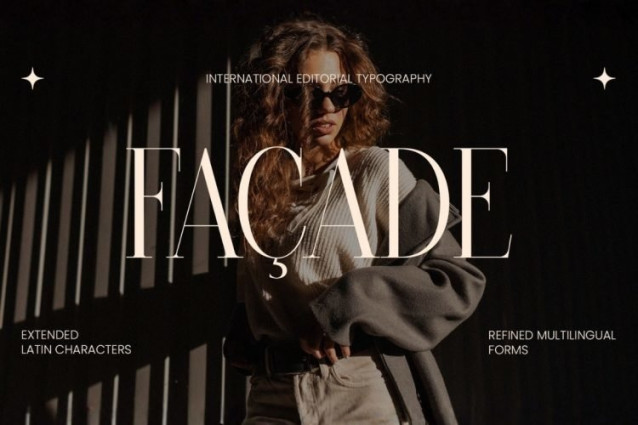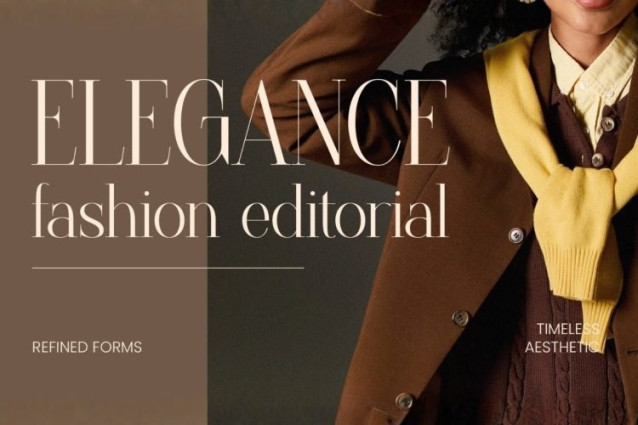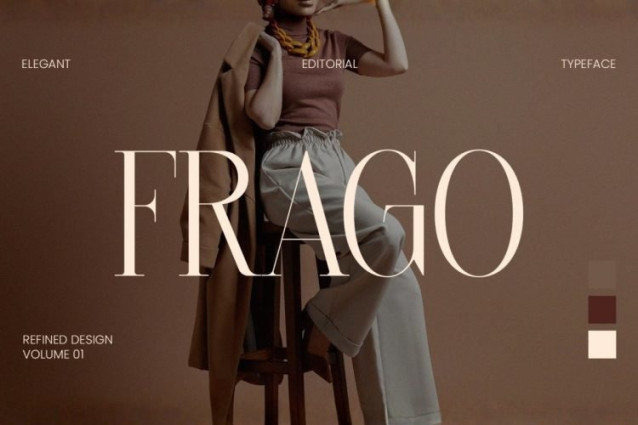
Frago Font
Frago Font is an elegant, high-contrast serif display font designed for high-end fashion and editorial layouts. It features condensed proportions, dramatic vertical stress, and razor-thin horizontal strokes that contrast sharply with its bold vertical stems. The letterforms are punctuated by delicate, sharp serifs, lending a sophisticated and luxurious feel to any layout.
Best suited to fashion magazine mastheads, luxury cosmetic packaging, boutique perfume labels, elegant book covers, and high-end event signage. This typeface is designed to be used at large sizes where its delicate thin strokes and sharp details can be fully appreciated.